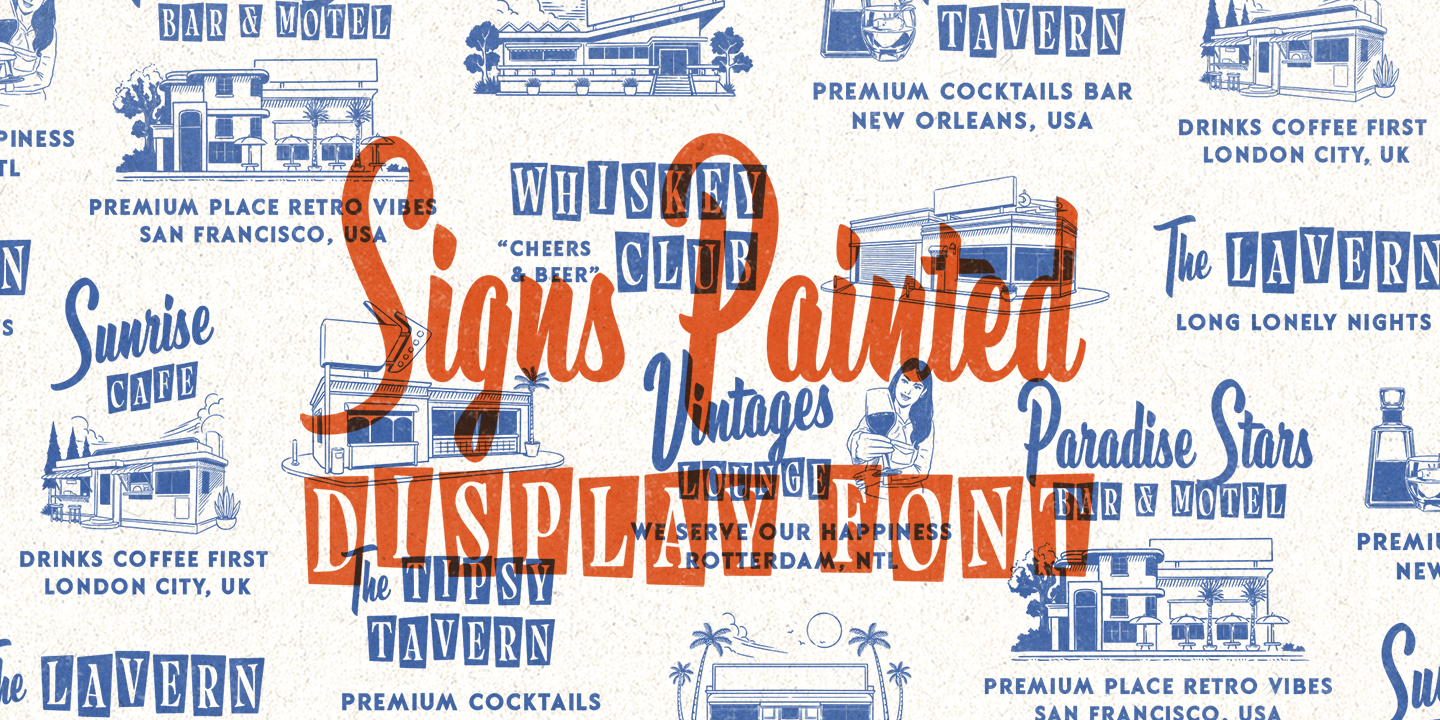
Signs Painted Font is perfect for vintage shop signage, retro restaurant branding, barbershop logos, antique store displays, craft brewery labels, artisan bakery signs, vintage car dealership graphics, old-fashioned diner menus, rustic cabin signage, handmade product packaging, and any project that requires authentic, hand-painted typography with nostalgic charm.
What makes Signs Painted Font exciting is its authentic hand-painted appearance that captures the craftsmanship of traditional sign painting. This distinctive typeface features natural brush strokes, paint texture variations, and organic letterform irregularities that evoke the golden age of American signage. The font's weathered character and artisanal quality make it an exceptional choice for brands seeking to convey authenticity, heritage, and handcrafted excellence that resonates with audiences appreciating traditional craftsmanship.
Signs Painted Font family includes various texture levels and stylistic alternatives, providing designers with options to achieve different levels of distressing and paint effects. The font family typically offers clean and weathered versions, along with decorative elements that enhance the vintage sign painting aesthetic and allow for authentic typographic compositions.
Whether you're designing for heritage brands, artisanal businesses, or vintage-inspired projects, Signs Painted Font Free Download delivers the authentic character and visual appeal that nostalgic design projects demand. Its timeless style makes it ideal for businesses wanting to establish a connection with traditional American craftsmanship and small-town charm.
The font's bold presence and readable structure ensure effective communication while maintaining its artistic authenticity. With Signs Painted Font, your designs will capture the spirit of classic American signage.